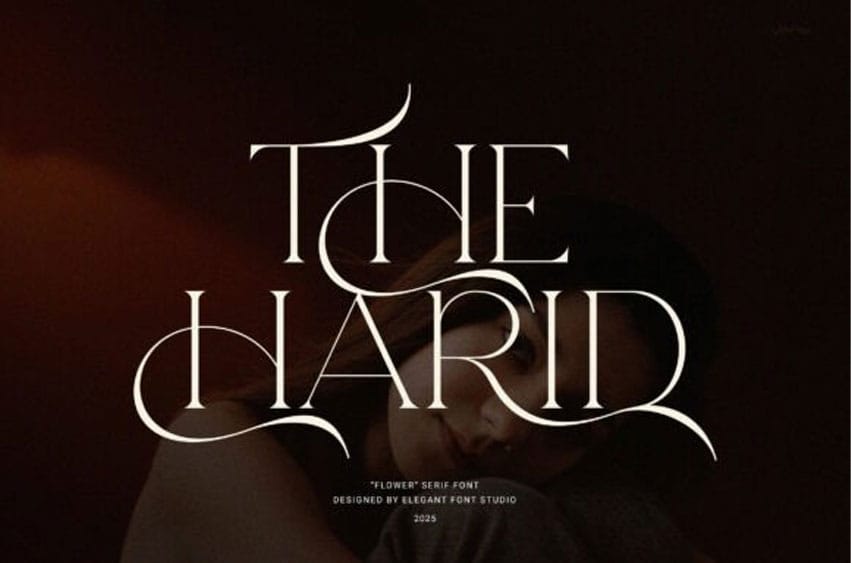
The Harid Font is a modern and stylish serif font that blends elegance with versatility. Designed with proportional shapes and sleek details, this font provides a refined look that suits all branding needs. Whether you’re creating a logo or designing a magazine layout, The Harid adds a touch of class without overwhelming your design.
Moreover, it features functional ligatures that enhance the flow of your typography. These subtle touches bring sophistication to your work, especially in high-end design projects. As a result, the Harid helps your brand stand out in a crowded market.
In addition to its elegant form, the Harid is incredibly versatile. It works beautifully in both digital and print applications. From product packaging to fashion editorials, its readability and charm remain consistent at any size. Furthermore, its clean structure ensures clarity in every letter, making it suitable for both headlines and body text.
Because of its balance between classic and modern aesthetics, The Harid suits various creative uses. It fits naturally in branding projects, social media graphics, luxury packaging, and stylish website headers. With alternate characters and smooth curves, it also supports creative flexibility, giving each design a unique edge.
Choose The Harid if you want your work to look polished, modern, and timeless—no matter the medium.